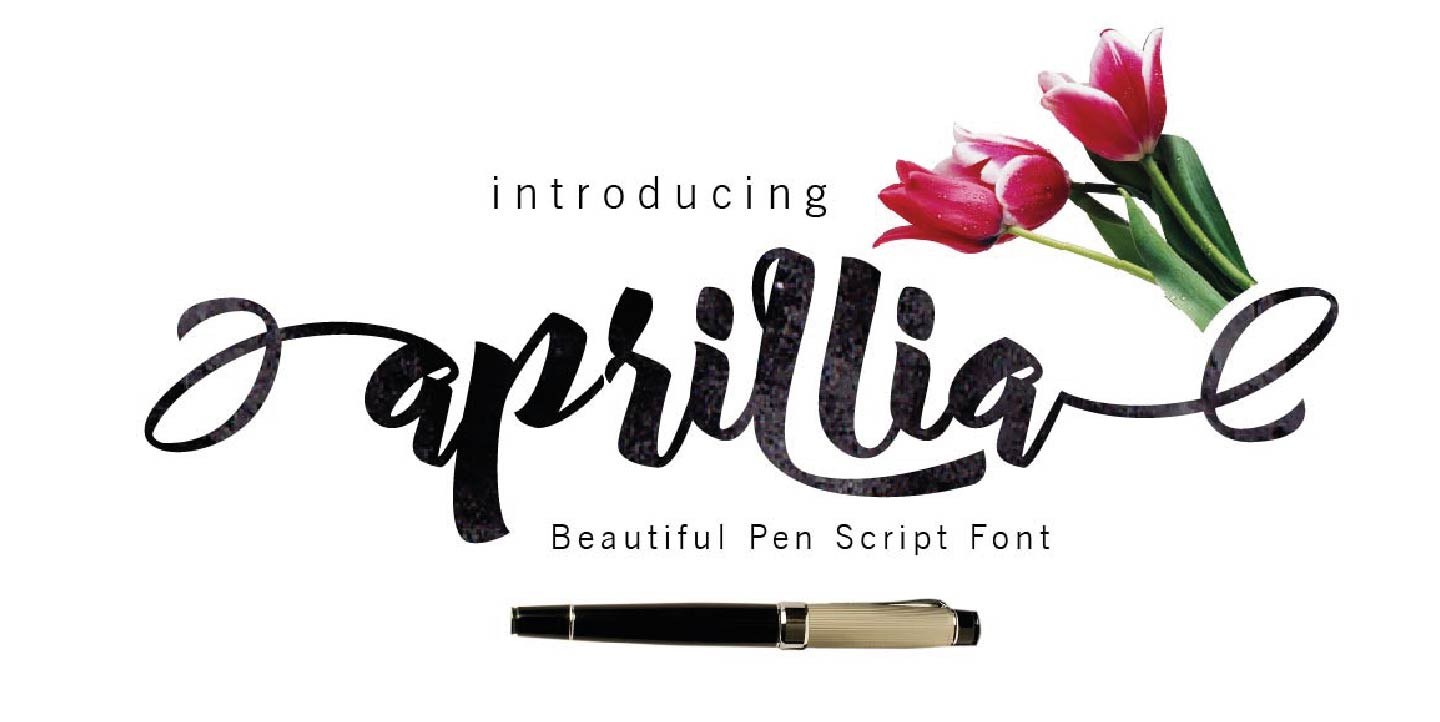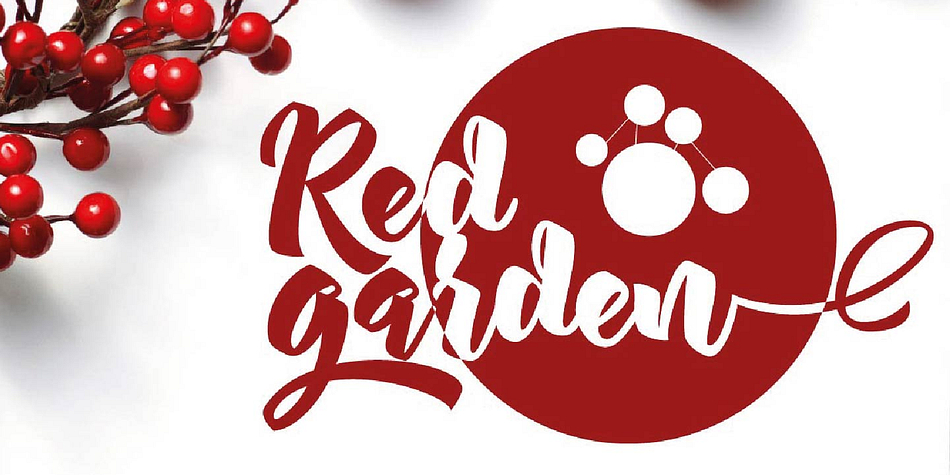
Aprillia Script is a brush script font published by olexstudio.
Aprillia Script is a modern Calligraphy typeface, It suitable for wedding invitation, greeting cards, watercolor based design, or any design that you create. Aprillia Script font comes with a complete set of standard characters, Punctuation, international glyphs, The alternative characters were divided into several OpenType features such as Ligature, Alternates and has given PUA unicode (specially coded fonts)